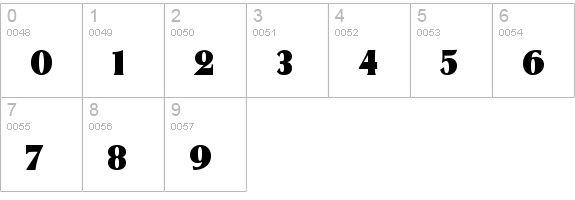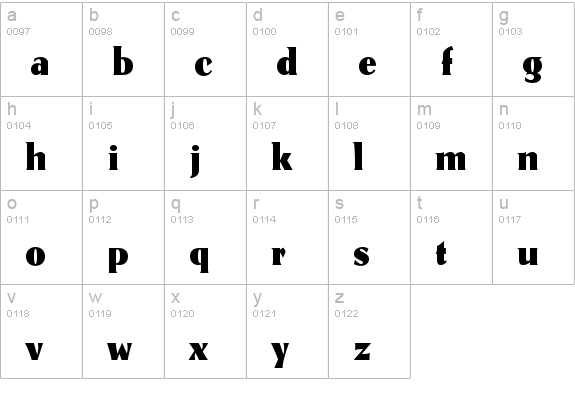
Kuenstler 165 Heavy Font Details
Kuenstler 165 Heavy is a heavy, high-impact variant in the Kuenstler typeface family \xE2\x80\x94 well suited to high-impact headlines, posters, and display advertising.
Kuenstler 165 Heavy is a bold and striking font that exudes elegance and sophistication. With its unique serifs and strong strokes, this typeface is perfect for making a statement in headlines, titles, and logos. The Kuenstler 165 Heavy font is free to use for personal and commercial projects, making it a versatile choice for designers looking to add a touch of class to their creations. You can easily download this stunning font for free at FontsMarket.com, where you will find a wide selection of high-quality fonts to elevate your designs. Unleash your creativity with Kuenstler 165 Heavy and make your projects stand out with its timeless appeal.